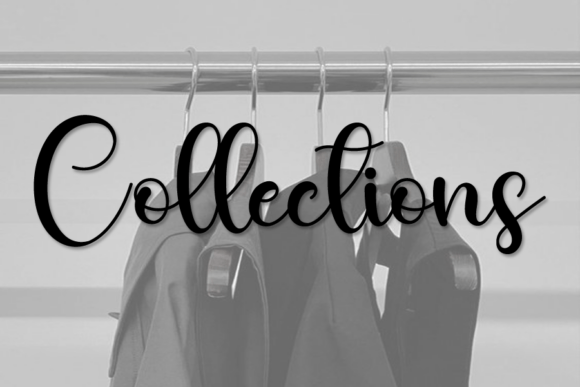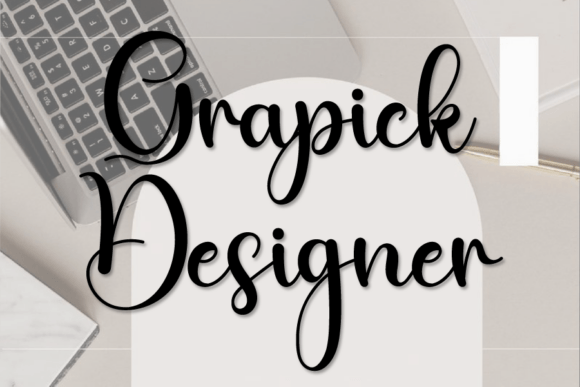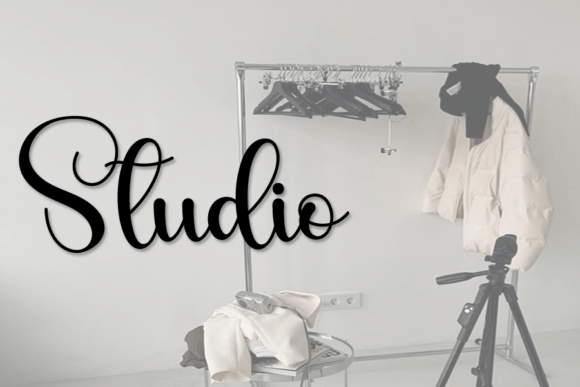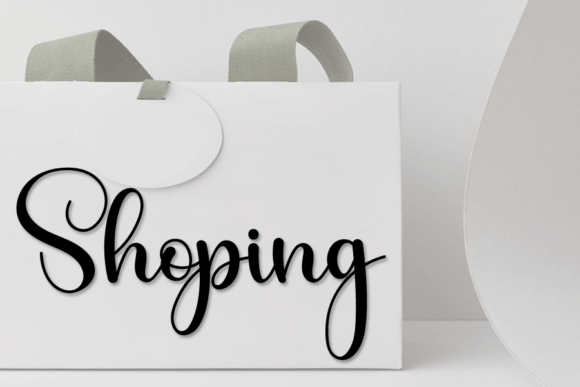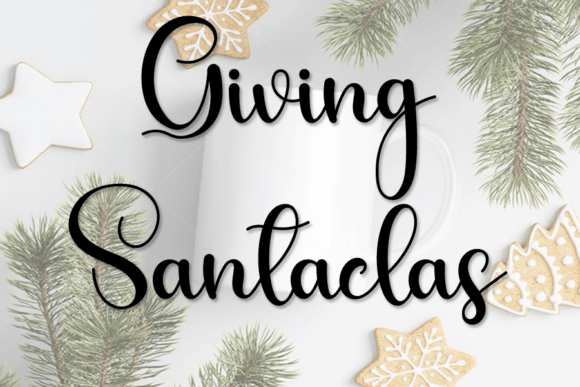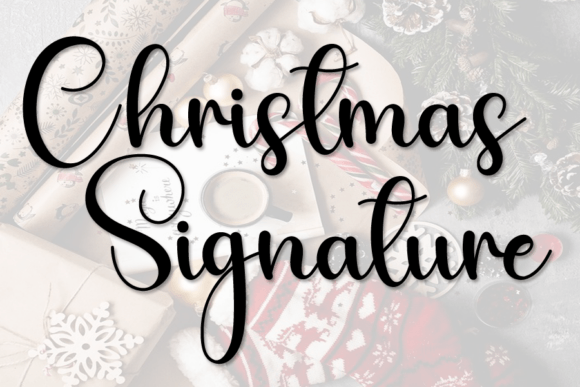
Introducing Christmas Signature Font: The Perfect Addition to Your Design Projects
Are you looking for a font that exudes a sense of joy, festivity, and warmth? Look no further than the Christmas Signature Font, a classic and simple handwritten script that’s perfect for a wide range of design projects. In this article, we’ll explore the features and benefits of this beautiful font, and show you how it can elevate your designs to the next level.
What is Christmas Signature Font?
Christmas Signature Font is a carefully crafted handwritten script that’s designed to evoke the spirit of the holiday season. With its random and free style, this font is perfect for adding a personal touch to your designs. Whether you’re working on a logotype, headline font, or corporate identity project, Christmas Signature Font is the perfect choice.
Key Features of Christmas Signature Font
- Classic and Simple Design: Christmas Signature Font features a timeless design that’s both elegant and understated.
- Handwritten Script: The font’s handwritten script style gives it a personal and unique feel that’s perfect for adding a touch of warmth to your designs.
- Random and Free Style: The font’s random and free style ensures that each letter and word is unique, giving your designs a sense of spontaneity and creativity.
- Versatile: Christmas Signature Font is suitable for a wide range of design projects, including logotype, headline font, corporate identity, brand identity, apparel industry, poster, music, movie, game, magazine, book, comic, cartoon, YouTube, Instagram, website, and more.
Benefits of Using Christmas Signature Font
So why choose Christmas Signature Font for your design projects? Here are just a few benefits of using this amazing font:
- Adds a Personal Touch: The handwritten script style of Christmas Signature Font adds a personal touch to your designs, making them more relatable and engaging.
- Evokes the Spirit of the Holiday Season: The font’s festive and joyful design is perfect for holiday-themed projects, and can help to create a sense of excitement and anticipation.
- Enhances Brand Identity: Christmas Signature Font can be used to create a unique and memorable brand identity that sets your business apart from the competition.
- Increases Creativity: The font’s random and free style can inspire creativity and help you to think outside the box when it comes to your designs.
How to Use Christmas Signature Font in Your Design Projects
Using Christmas Signature Font in your design projects is easy. Here are a few ideas to get you started:
- Logotype and Branding: Use Christmas Signature Font to create a unique and memorable logotype that reflects your brand’s personality and values.
- Headline Font: Use the font as a headline font to add a touch of elegance and sophistication to your designs.
- Poster and Flyer Design: Use Christmas Signature Font to create eye-catching posters and flyers that grab attention and communicate your message.
- Social Media Graphics: Use the font to create engaging social media graphics that stand out from the crowd and help you to connect with your audience.
Christmas Signature Font is a beautiful and versatile font that’s perfect for a wide range of design projects. With its classic and simple design, handwritten script style, and random and free style, this font is sure to add a touch of joy and festivity to your designs. Whether you’re a designer, crafter, or DIY enthusiast, Christmas Signature Font is a must-have font that will help you to create stunning and effective designs.